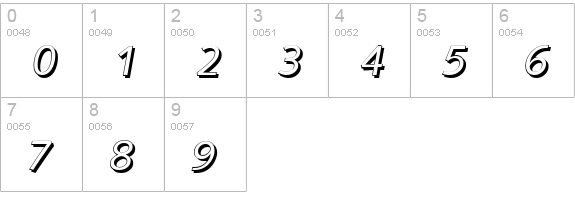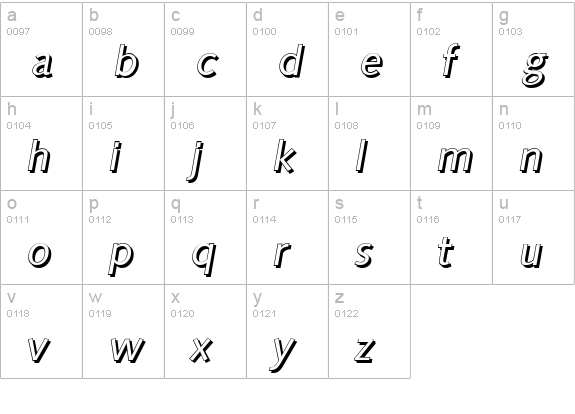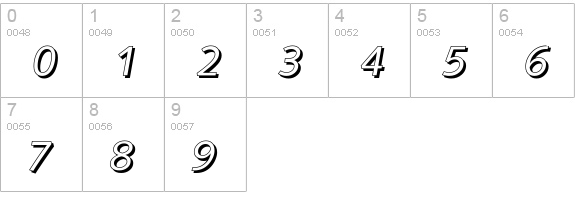
SaxonyShadow-Italic Font Details
SaxonyShadow-Italic is a distinctive, italic variant in the SaxonyShadow typeface family \xE2\x80\x94 well suited to design and typography projects.
Introducing SaxonyShadow-Italic, a sleek and sophisticated font that exudes elegance and charm. With its unique italicized style and intricate shadow details, this font is perfect for adding a touch of class to any design project. Whether you're creating invitations, logos, or branding materials, SaxonyShadow-Italic is sure to make a lasting impression. The best part? SaxonyShadow-Italic is available for free download exclusively at FontsMarket.com. Now you can elevate your designs without breaking the bank. Don't miss out on this opportunity to add a touch of luxury to your projects with SaxonyShadow-Italic. Download it today and let your creativity shine!